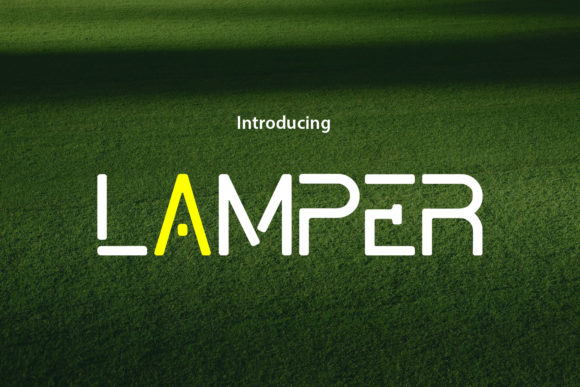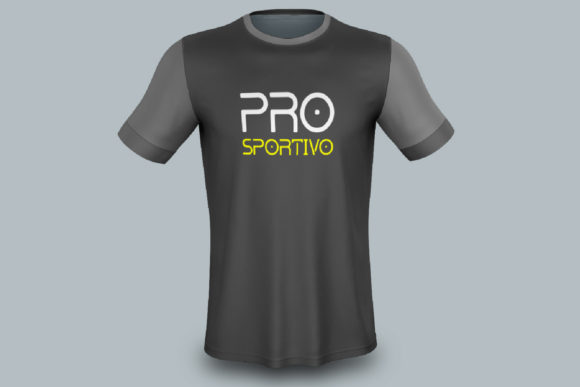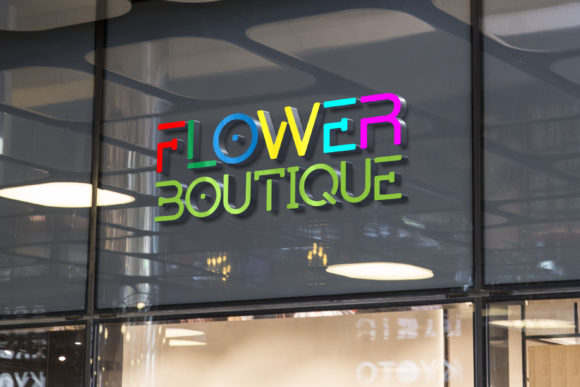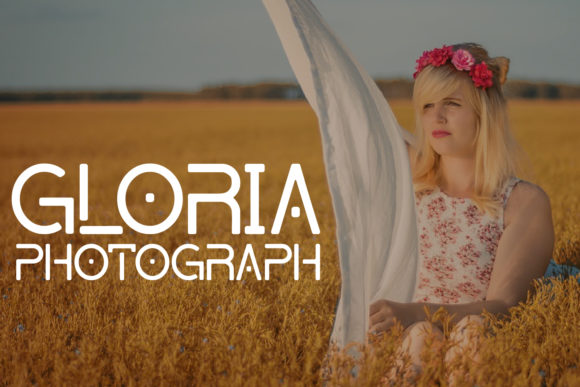
Lamper is a smart and futuristic sans serif font that features an incredibly unique style. Its disconnected letters evoke an incredibly contemporary and dynamic feel.